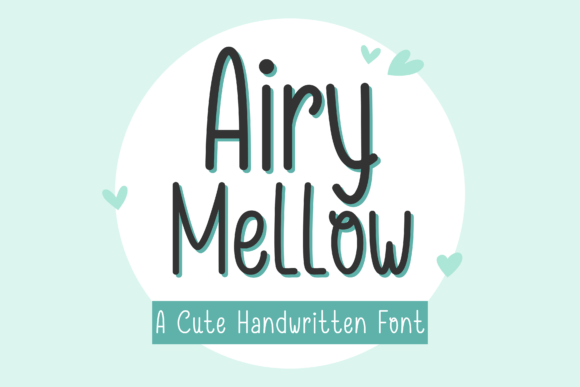
Discover Your Creative Spark with Airy Mellow Font
Have you ever sat down with a blank notebook page, feeling the urge to create something beautiful and unique? The blank page stares back at you, waiting for your imagination to bring it to life. It’s in these moments that the right tools can make all the difference. That’s where the Airy Mellow Font comes in – a simple and cute handwriting font designed to inspire your creativity and bring your ideas to the forefront.
Perfect for social media, Goodnotes, or digital planning, the Airy Mellow Font is an essential addition to any designer’s toolkit. Its versatility and charm make it ideal for branding, decor crafts, invitations, and more. With its wide range of characters, including uppercase and lowercase letters, numbers, and punctuation marks, this font is a valuable asset for designers looking to add a personal touch to their projects.
- Unique Characteristics: Airy Mellow features a unique, hand-drawn style with a mix of elegant and playful elements, making it suitable for a wide range of creative projects.
Designer Review: Airy Mellow Font
Overall, I think Airy Mellow Font is a solid addition to any designer’s toolkit. Here’s what works well for me:
- ✨ The airy, mellow feel is perfect for creating a soothing and calming atmosphere in branding and typography.
- ✨ The font is highly legible, making it a great choice for body text and longer paragraphs.
- ✨ The font family includes a range of weights, from light to bold, giving designers plenty of flexibility.
- ⚠️ The font may not be as striking or attention-grabbing for bold statements or headlines.
- ⚠️ Some of the weights may feel a bit too similar, which can make it difficult to create a clear visual hierarchy.
Overall, I think Airy Mellow Font is a great choice for designers who want to create a calm and soothing aesthetic. While it may not be the best fit for every project, it’s a solid addition to any toolkit.
Tips for Getting the Most Out of Airy Mellow Font
Use the Airy Mellow Font for designs that require a soft, elegant touch. It pairs well with watercolor or hand-drawn elements. To get the most out of the font, use it in combination with other design elements that complement its unique style.
The Airy Mellow Font is ideal for:
- Branding and logo designs
- Infographics and data visualizations
- Editorial and magazine designs
Alternatives to Airy Mellow Font
Lato Font is a modern sans-serif typeface designed by Łukasz Dziedzic. It is perfect for use in digital products, websites, and applications where a clean and minimalist aesthetic is desired. Lato is a great alternative to Airy Mellow Font as it has a similar feel but with a more professional and corporate tone.
Similarity: Both fonts have a minimalist feel and are suitable for digital products. Difference: Lato is more professional and corporate, while Airy Mellow Font is more casual and friendly.
Open Sans Font is a popular sans-serif typeface designed by Steve Matteson. It is highly legible and works well in a variety of contexts, from body text to headings. Open Sans is a great alternative to Airy Mellow Font as it has a similar feel but with a more neutral tone.
Similarity: Both fonts have a clean and minimalist feel. Difference: Open Sans is more neutral and works well in a variety of contexts, while Airy Mellow Font is more suited for casual and creative projects.
Avenir Next Font
Avenir Next Font is a modern sans-serif typeface designed by Adrian Frutiger. It is perfect for use in high-end branding, luxury products, and sophisticated designs. Avenir Next is a great alternative to Airy Mellow Font as it has a similar feel but with a more premium and elegant tone.
Similarity: Both fonts have a minimalist feel and are suitable for digital products. Difference: Avenir Next is more premium and elegant, while Airy Mellow Font is more casual and friendly.
Q: Is Airy Mellow Font optimized for digital use?
Yes, Airy Mellow Font is carefully optimized for digital use, with features such as hinting and kerning to ensure crisp and clear text rendering on various screen resolutions and devices.